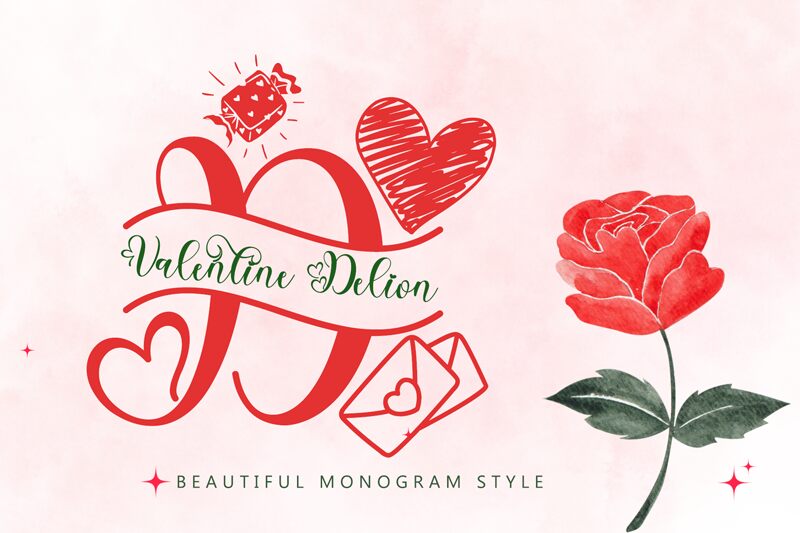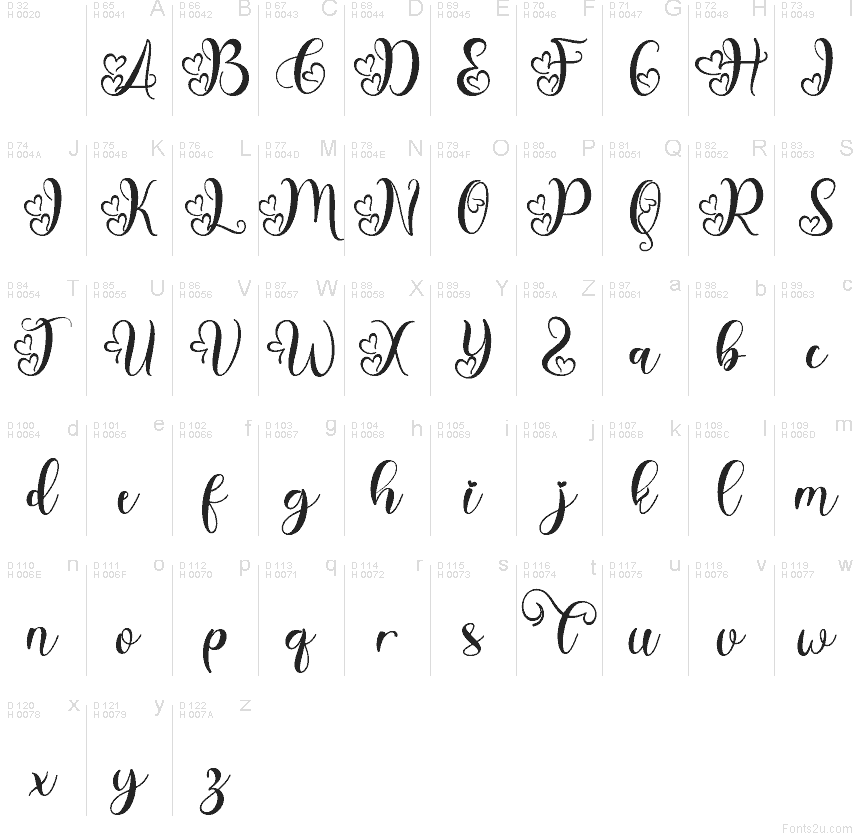
Valentine Delion font by Yoga Letter is a free romantic holiday script typeface that feels like it’s been brushed onto the page in wet, inky strokes. Tall, looping letters sweep into each other with airy swashes and tiny heart flourishes, giving every word a handwritten, love-note energy. The rhythm is playful and slightly bouncy, so lines feel lively rather than stiff or formal.
Using Valentine Delion font, you can dress up Valentine’s cards, wedding stationery, love-themed logos, product packaging, quote prints, social media posts, and party signage with instant charm. This free font shines when it’s set large so the curls and hearts have room to breathe; pair it with a simple sans-serif for body text to keep your layouts clear and readable.